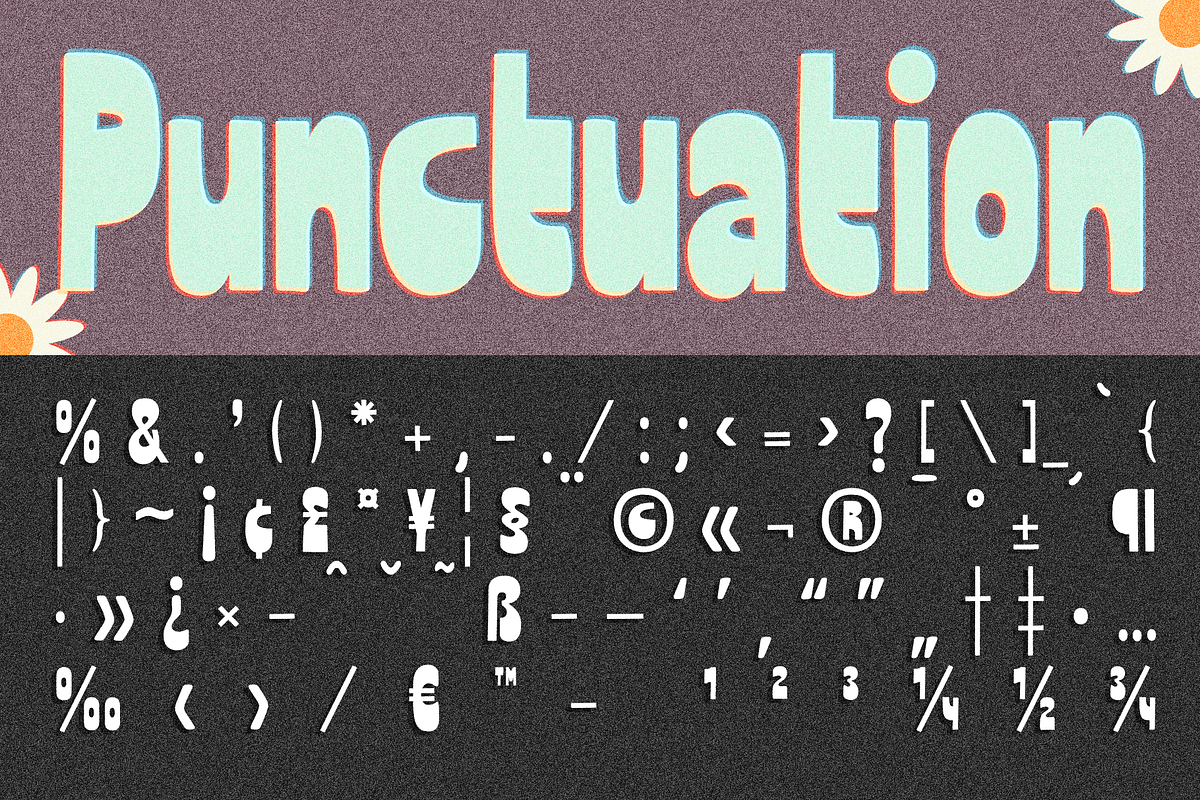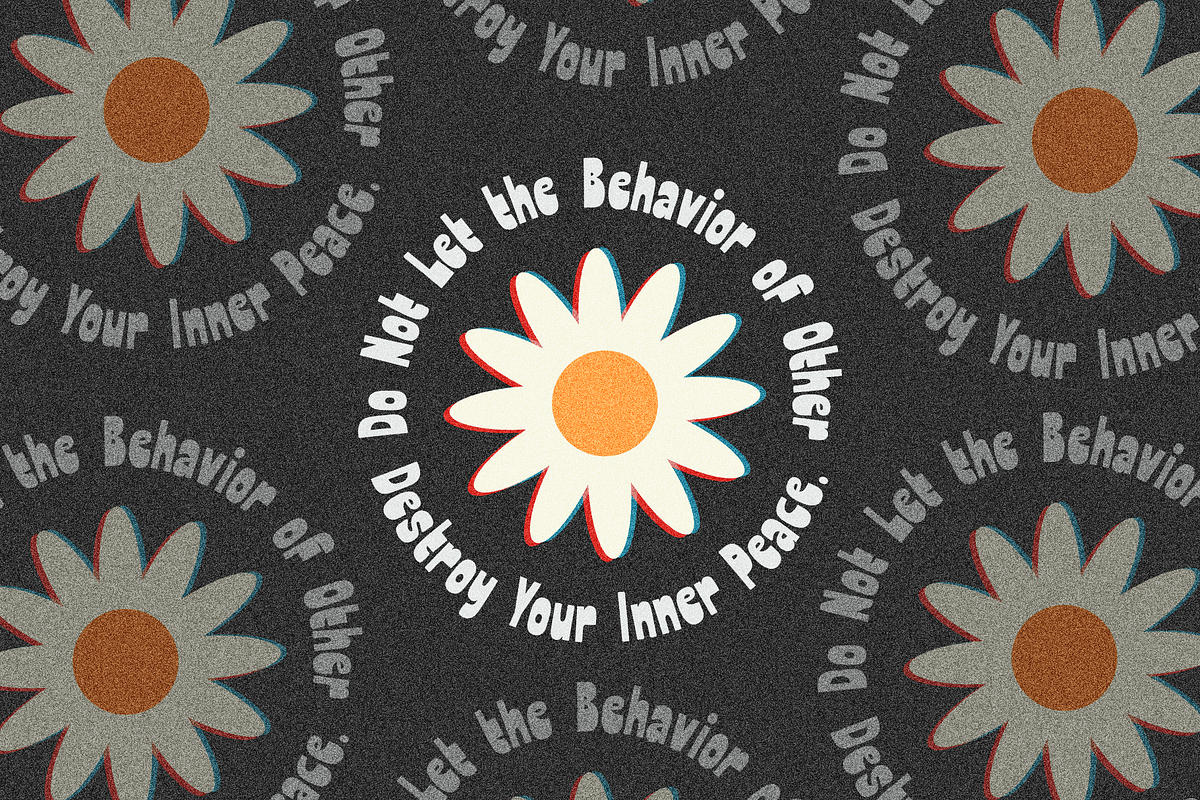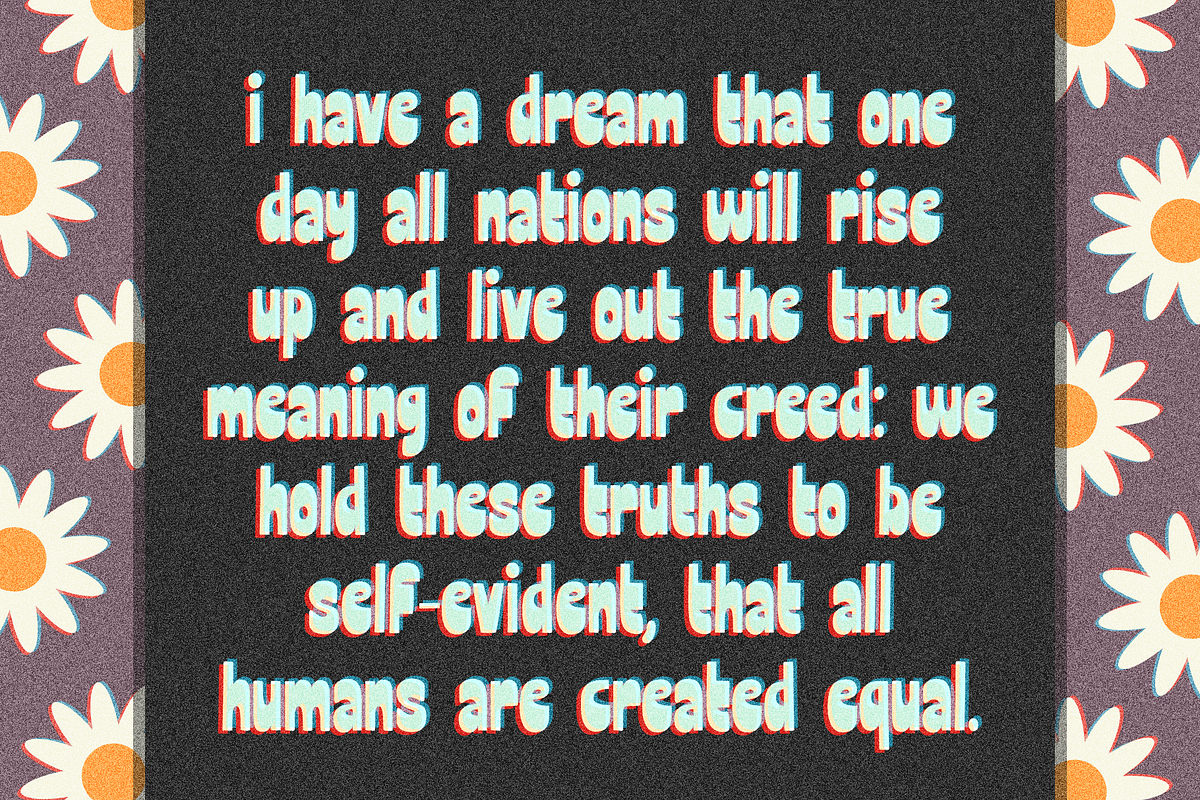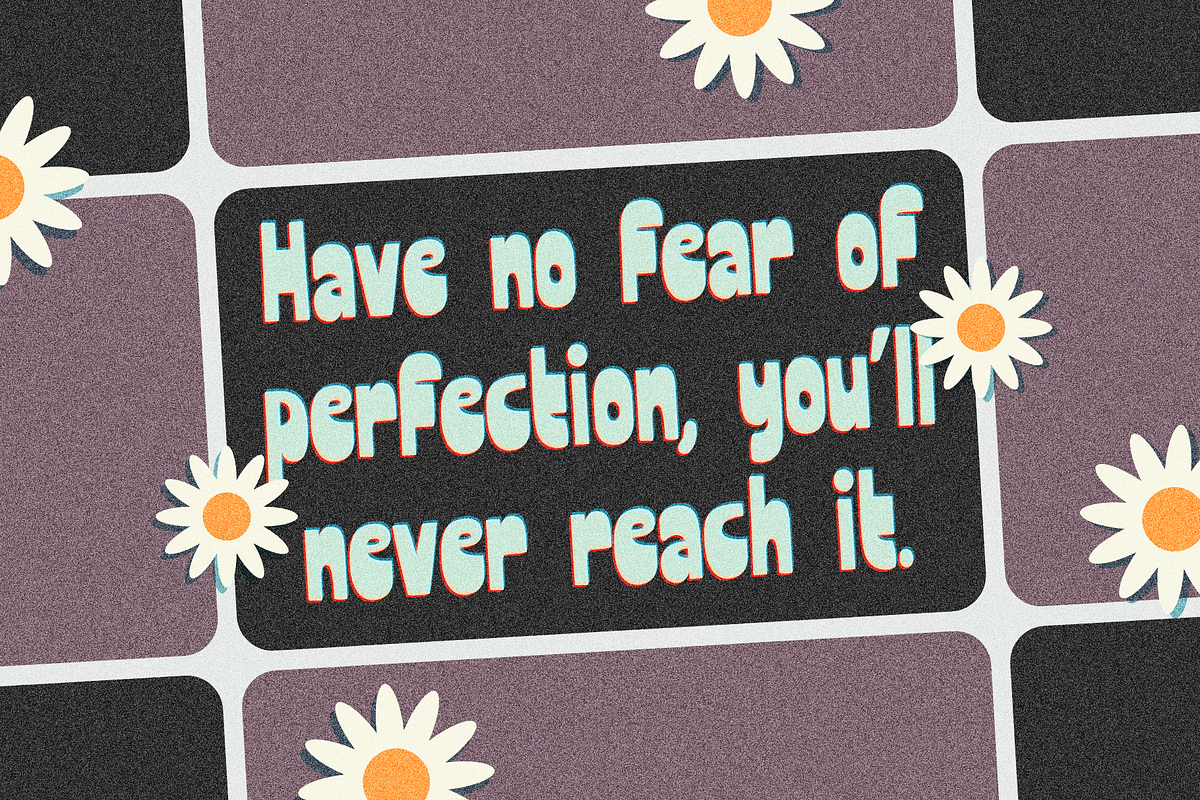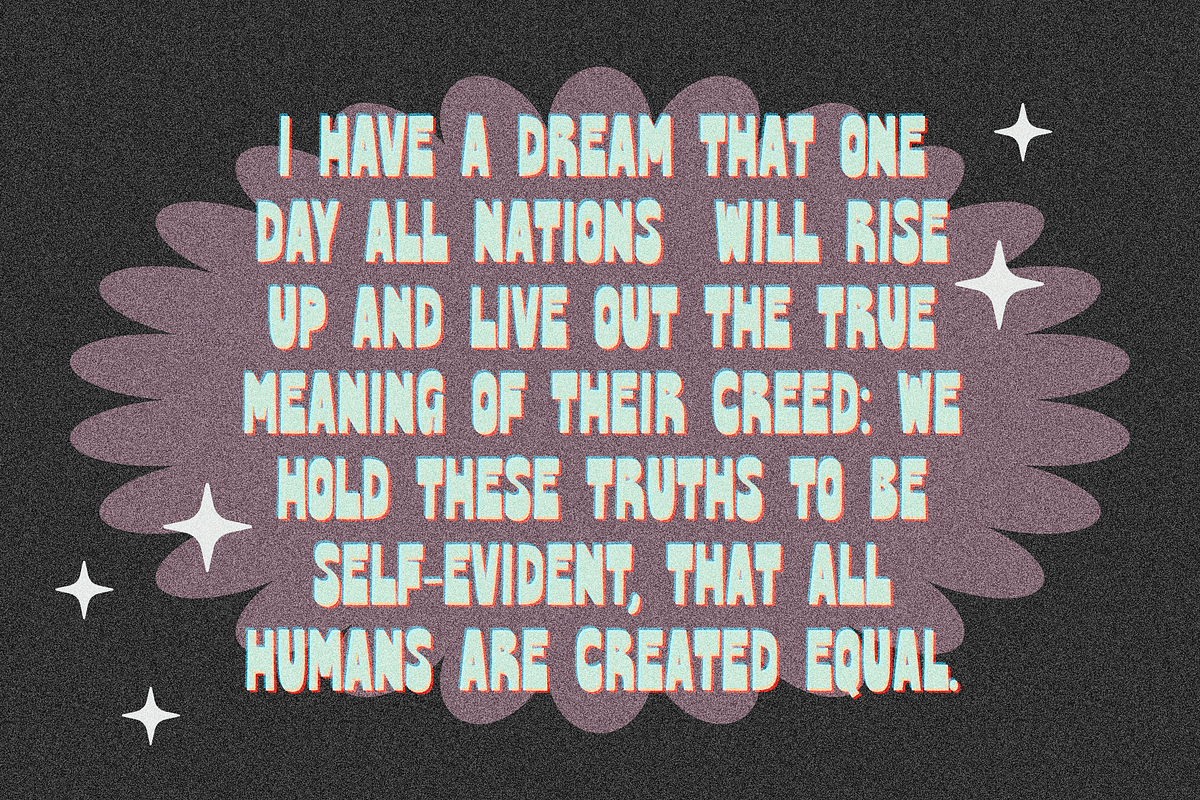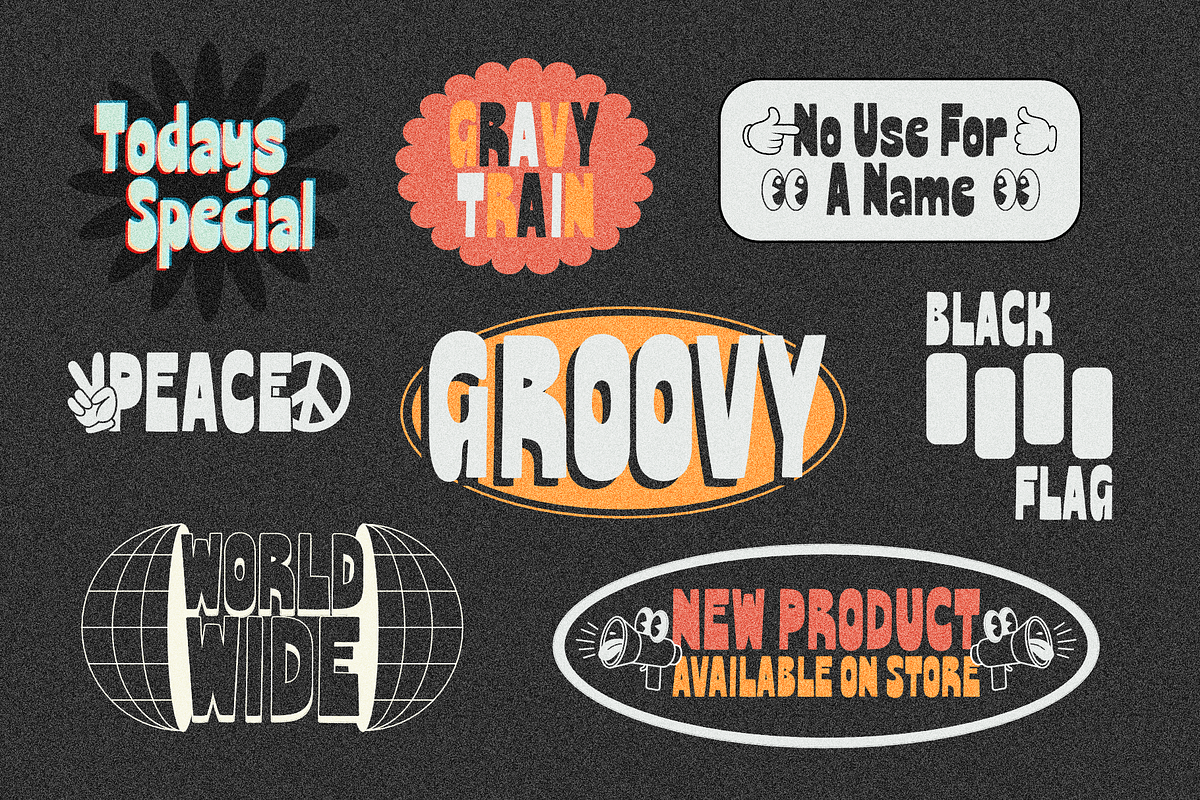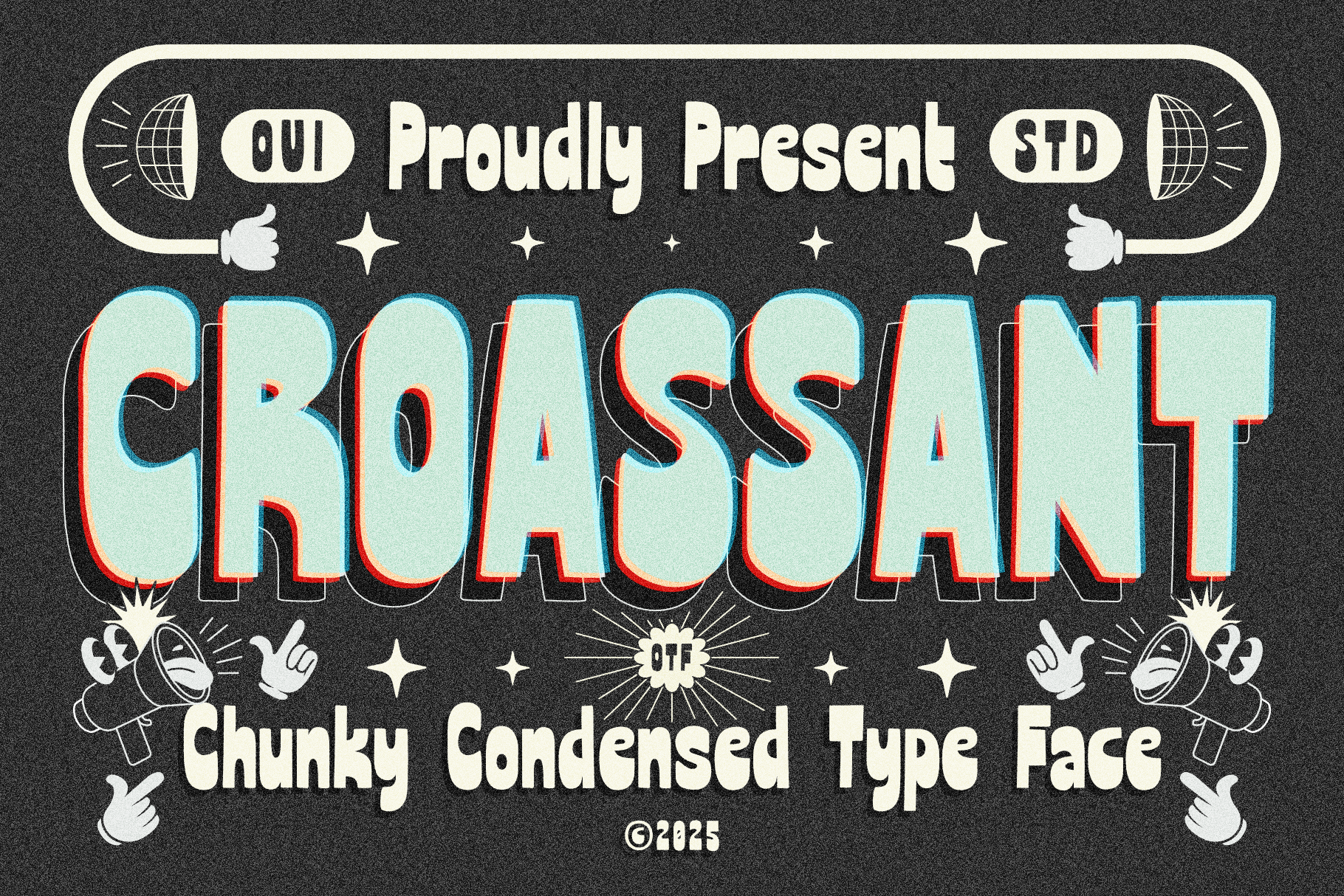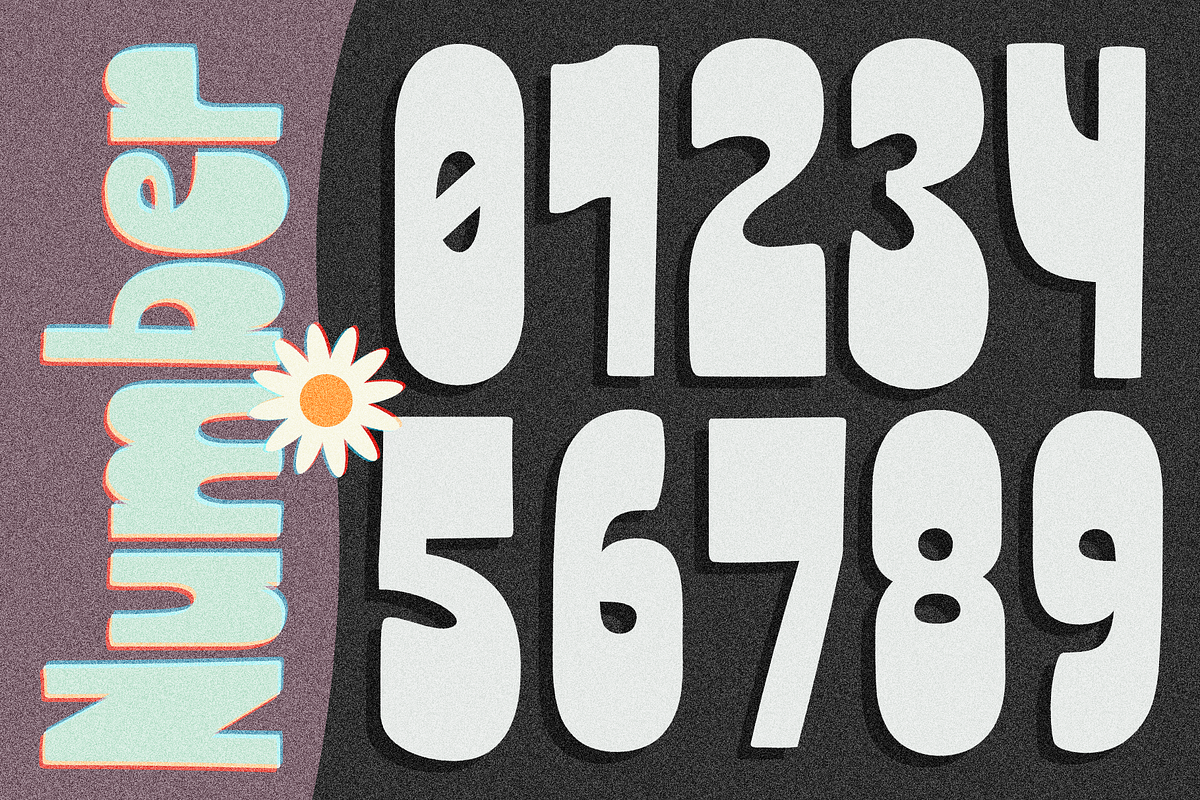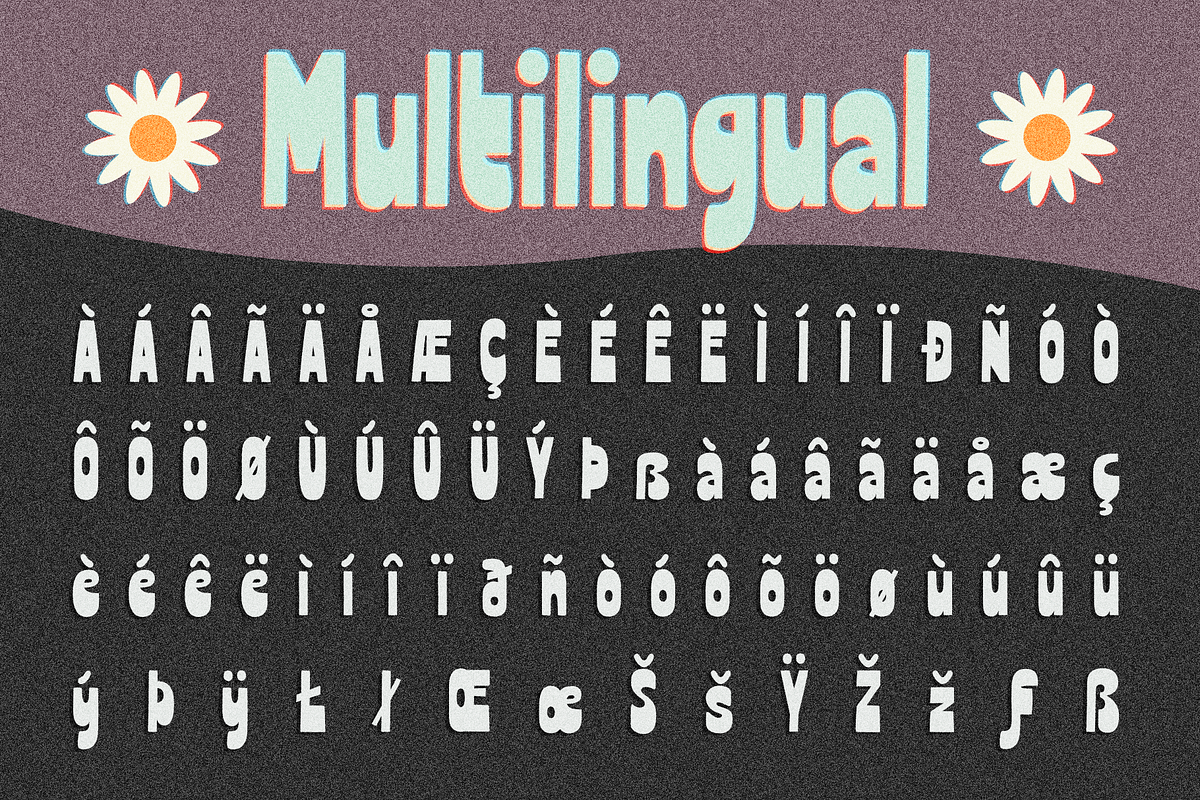
Croassant Modern Groovy Typeface
Hello friends! The 'Croassant' font is coming, a super fresh modern groovy font! Croassant is very inspired by the hippie era in a modern way.
Croassant has a balance of condensed and thickness at the bottom of the font. It's perfect for branding, logo, invitations, greeting cards, packaging, graphic tee, posters, digital or print stuff, artwork, products, etc.